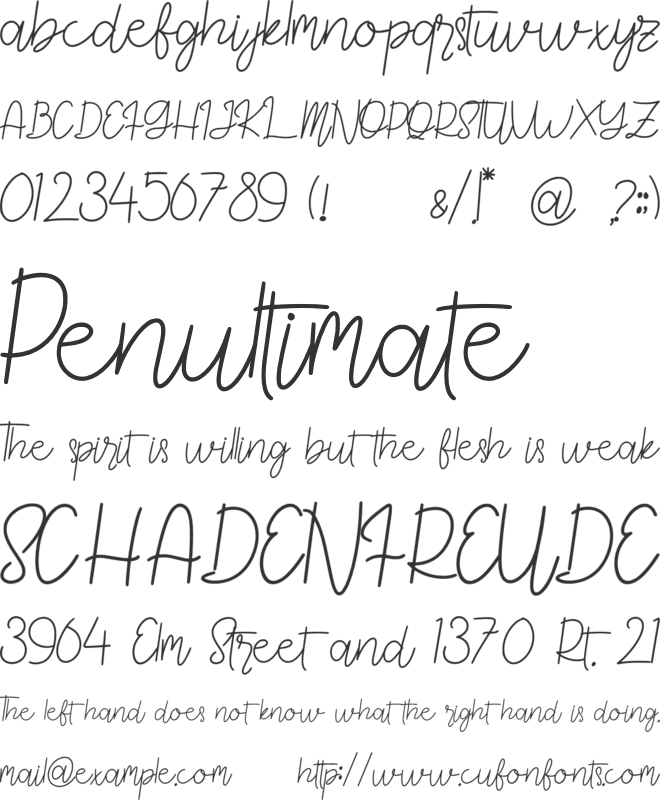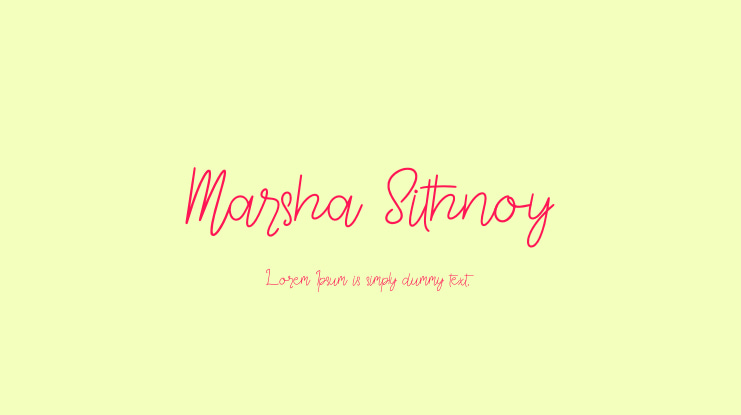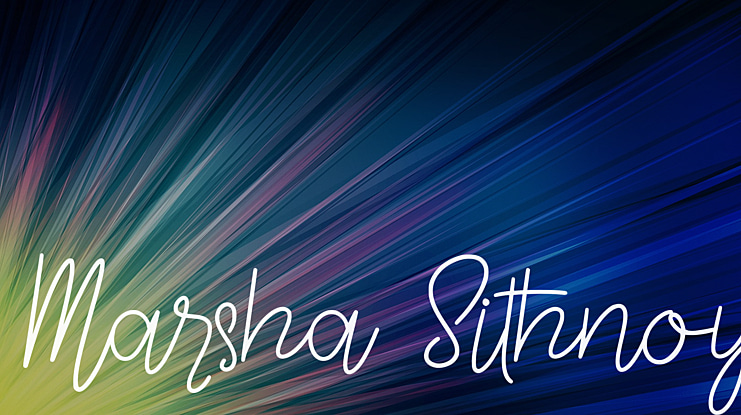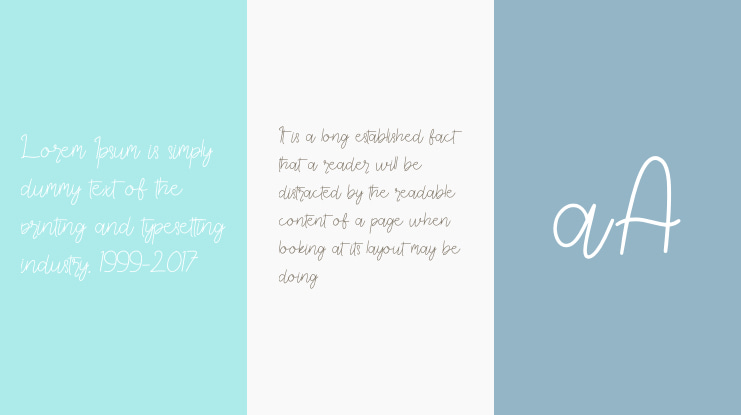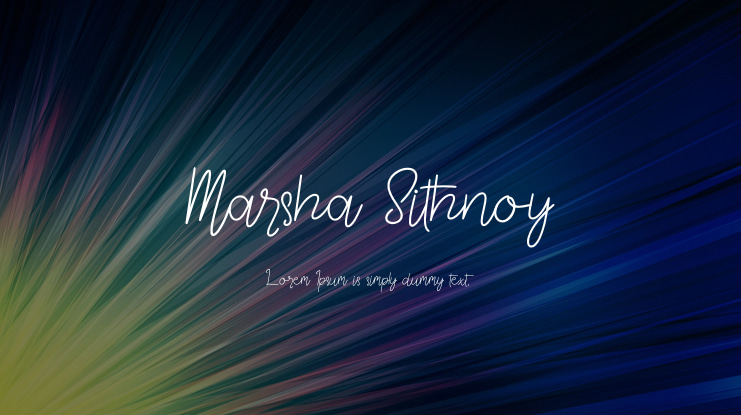
Marsha Sithnoy Font
This is a calligraphy font. Marsha Stihnoy is perfect for branding project, apparel, labels, magazines, books, greeting / wedding cards, packaging, fashion, make up, stationery, and any type of advertising purpose or just used to express words above the background.